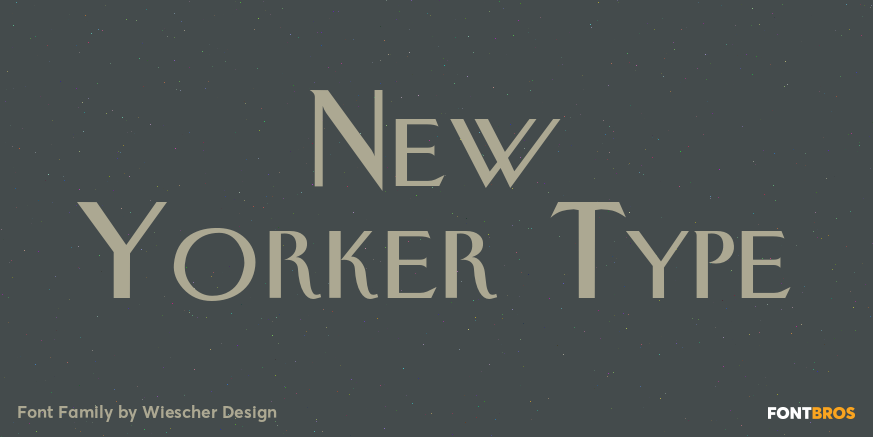
New Yorker Type
NewYorkerType was one of the first typefaces I tried my hand at in 1985. I meant it as a revival of the typeface used by the New Yorker magazine. I did not scan it in, I just looked at the type and redrew it completely by hand. So it is not just a copy,…